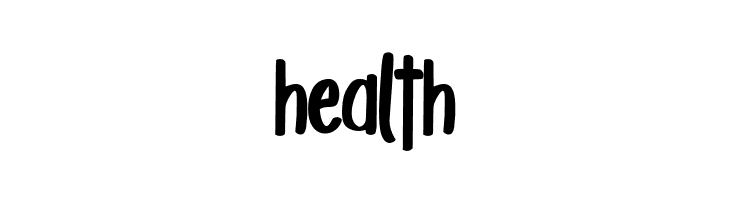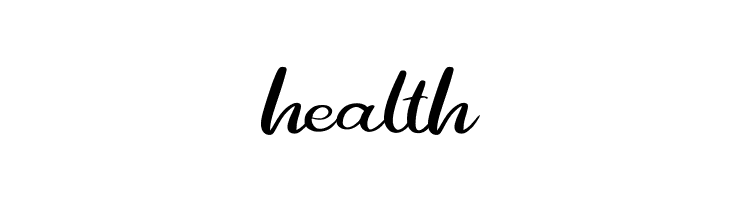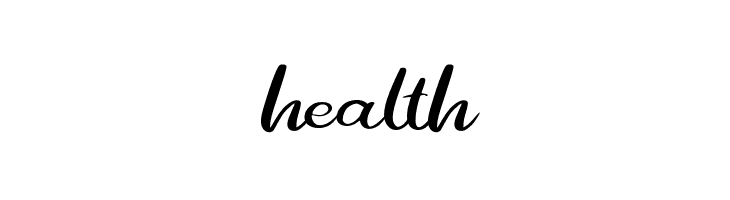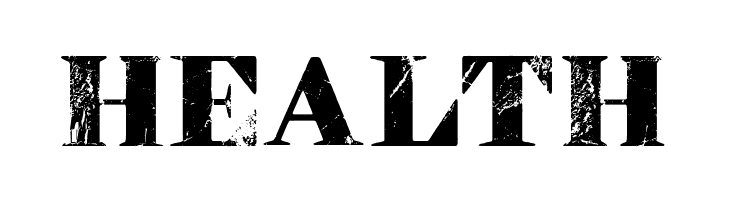
A bold, playful font with rounded edges and a modern, friendly style.
A bold, playful font with rounded edges and a slightly condensed form.
A playful, bold font with rounded strokes and a friendly appearance.
A flowing, cursive font with elegant, sweeping strokes and a modern calligraphic style.
A flowing, cursive font with elegant loops and a modern calligraphic style.
A bold, distressed font with a vintage, rugged appearance.
A bold, textured script font with a modern, hand-drawn feel.
A bold, dynamic script font with interconnected characters and sweeping curves.
A bold, angular font with a modern twist on traditional Japanese aesthetics.
A playful and bold font combining decorative and sans-serif elements.